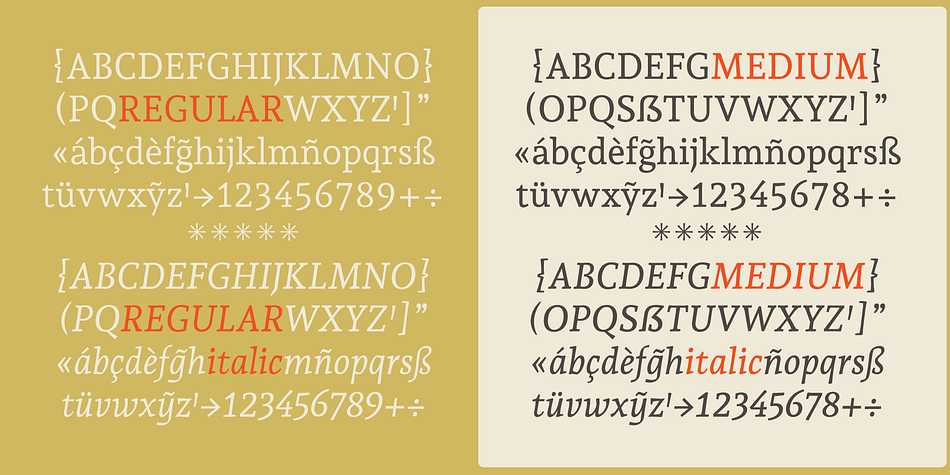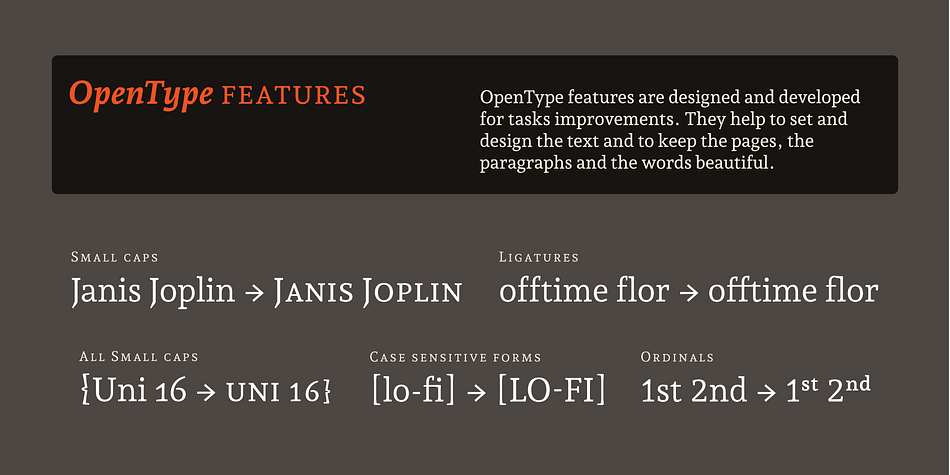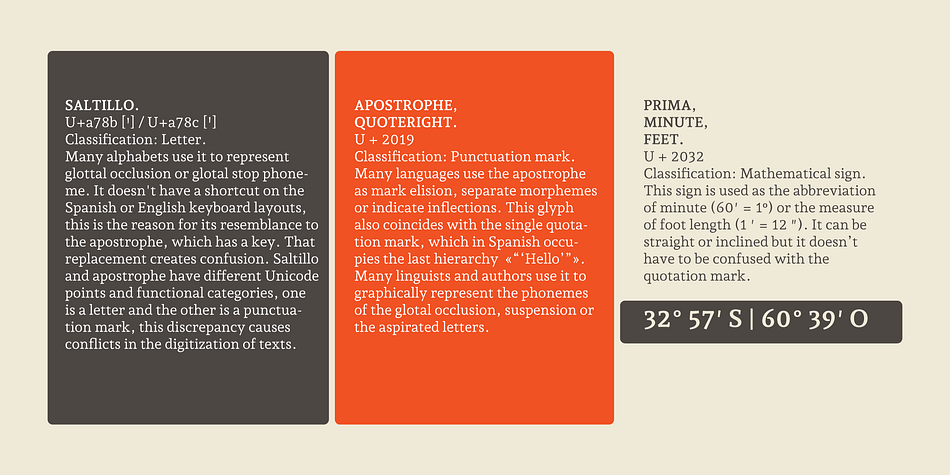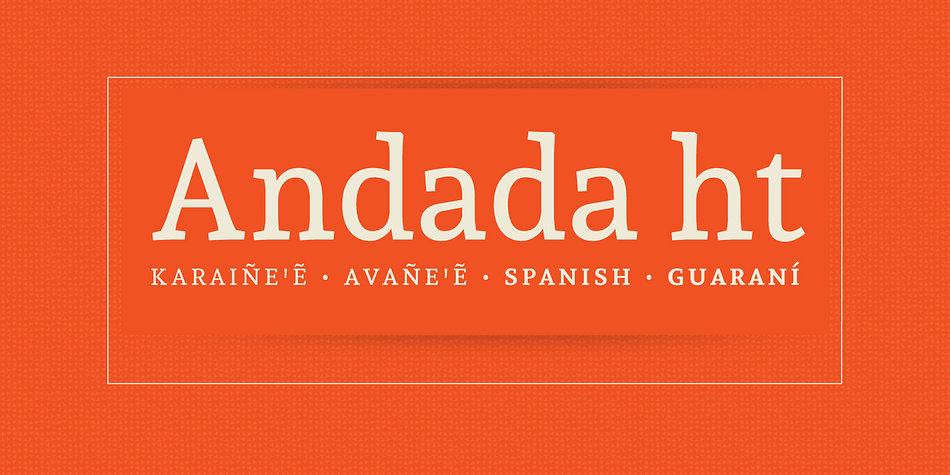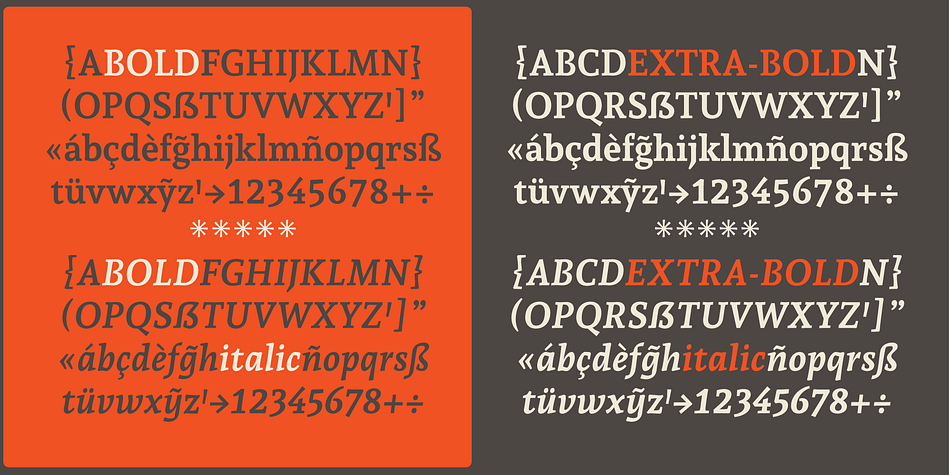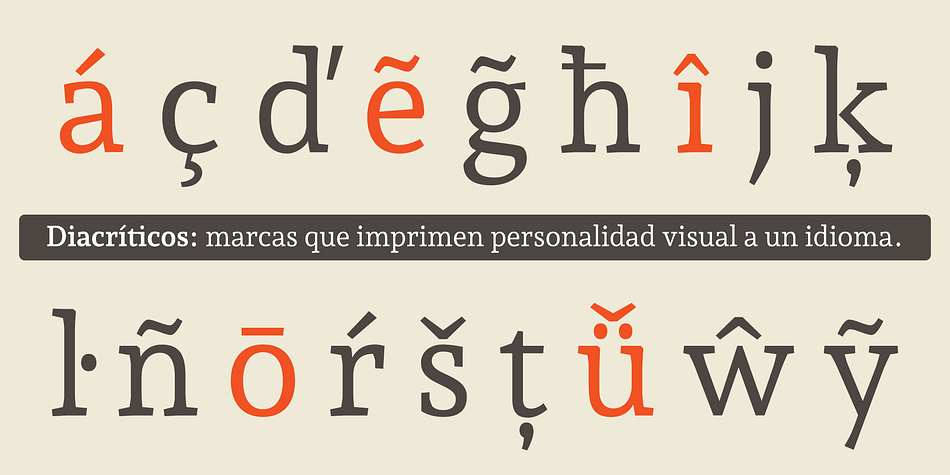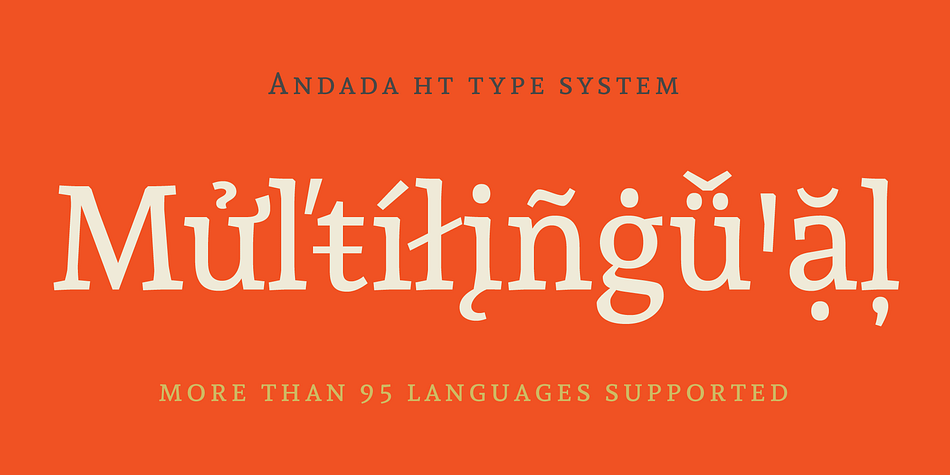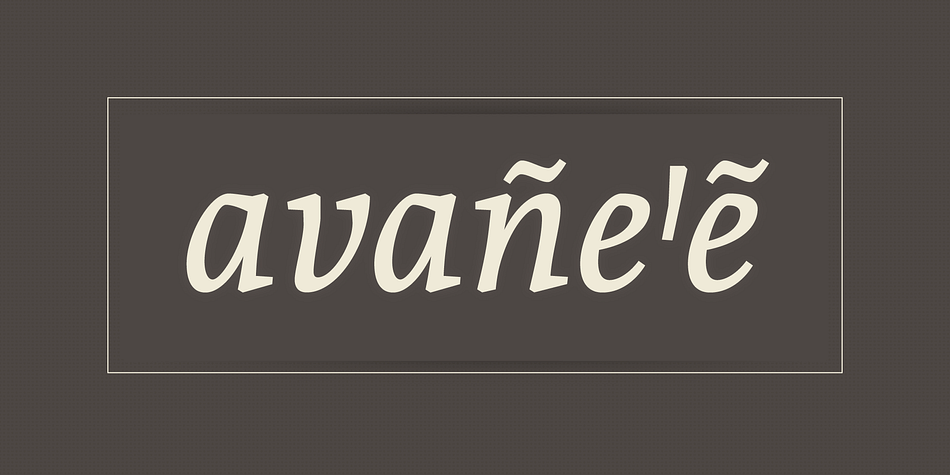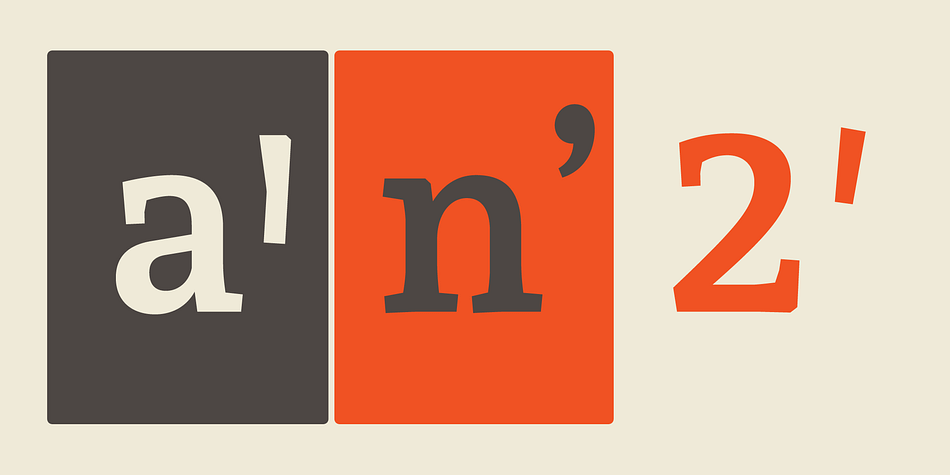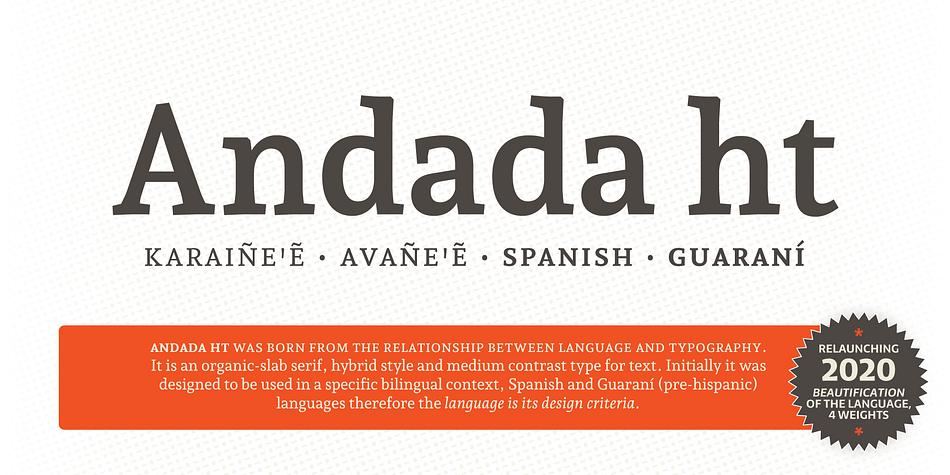
Designed by Carolina Giovagnoli, Andada ht is a serif and slab serif font family. This typeface has eight styles and was published by Huerta Tipográfica.
Andada ht was born from the relationship between language and typography. It is an organic-slab serif, hybrid style and medium contrast type for text. Initially it was designed to be used in a specific bilingual context, Spanish and Guaraní (pre-hispanic) languages therefore the language is its design criteria.
The Guaraní language uses the latin system, it has a character named puso, which is an identifying sign for Guaraní, like the ñ in Spanish, the č in Czech or the ß in German. The correct sign to represent the puso is the saltillo (Saltillo uniA78B, saltillo uniA78C), but usually it’s replaced by an apostrophe because the saltillo does not appear in the spanish, english or portuguese keyboards layouts.
During these 10 years of work I have looked for different solutions to improve the composition of text in guaraní, from the typographical and technical points of view.
I have developed a new keyboard distribution, which allows the guaraní language users to normally type in their language.